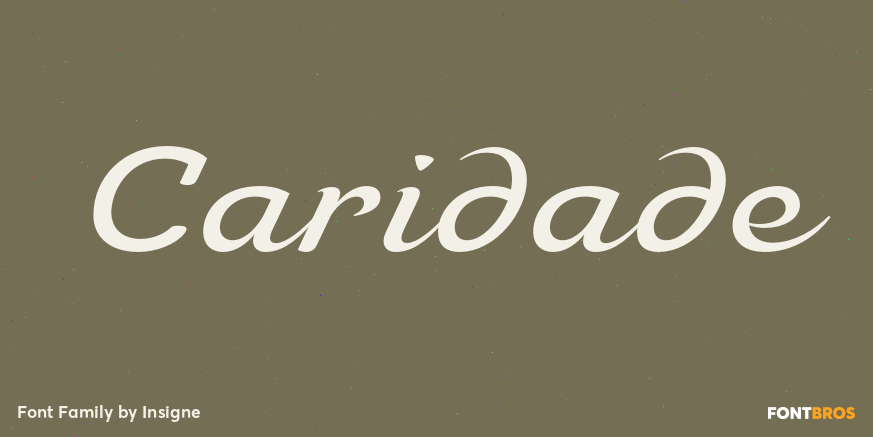
Caridade
About Caridade
Caridade is a bold and powerful script face. It draws some inspiration from heavy brush drawn vintage hand lettering but its heavy weight is much thicker with plenty of impact and more contemporary letterforms. The face offers a wide array of weights,…